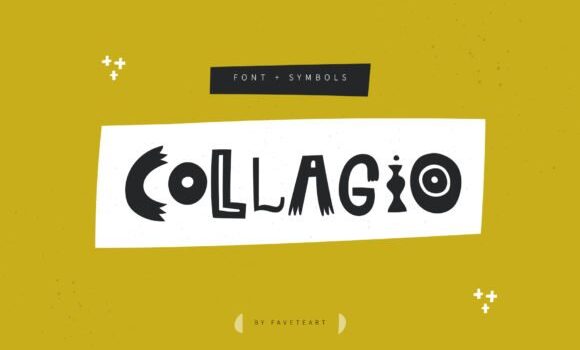
collagio
Collagio Font – Free Download Introduction to Collagio Font Collagio is a unique duo font (decorative and dingbats), with bold characters and a young feel to every letter and symbol. 📸 Preview Gallery 6 images 📌 Product Name Collagio Font